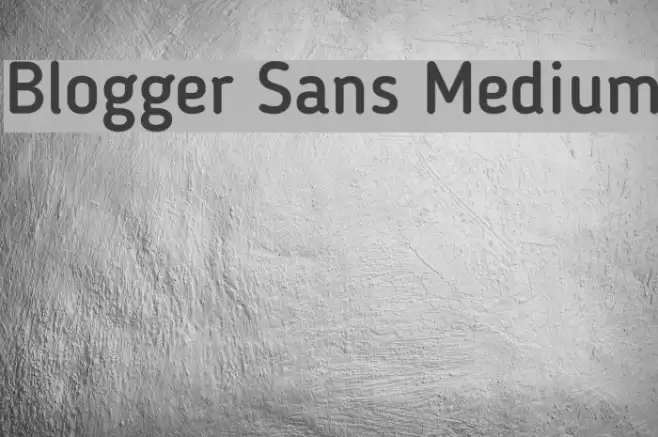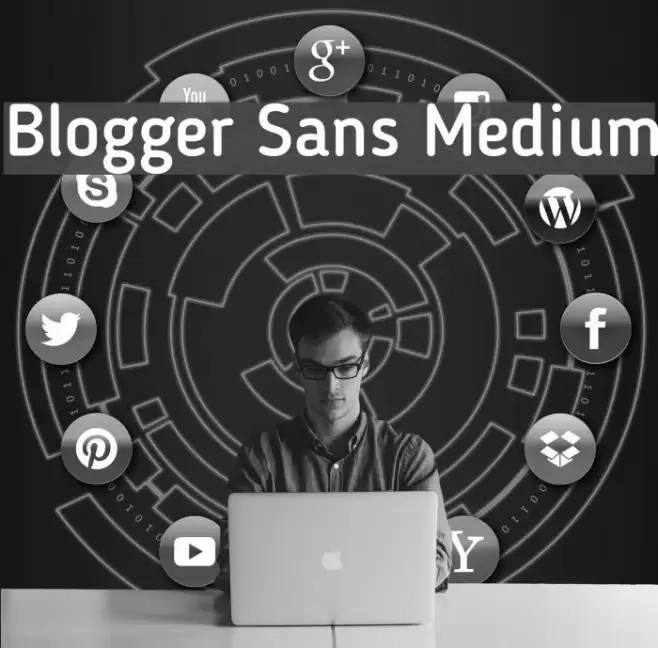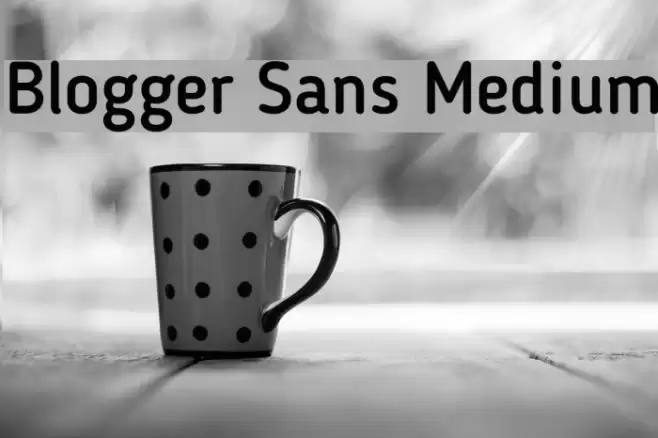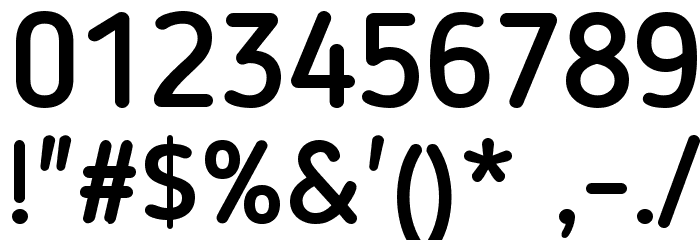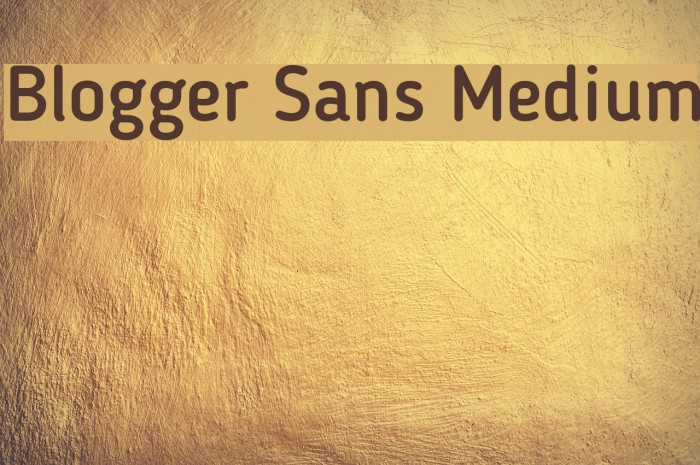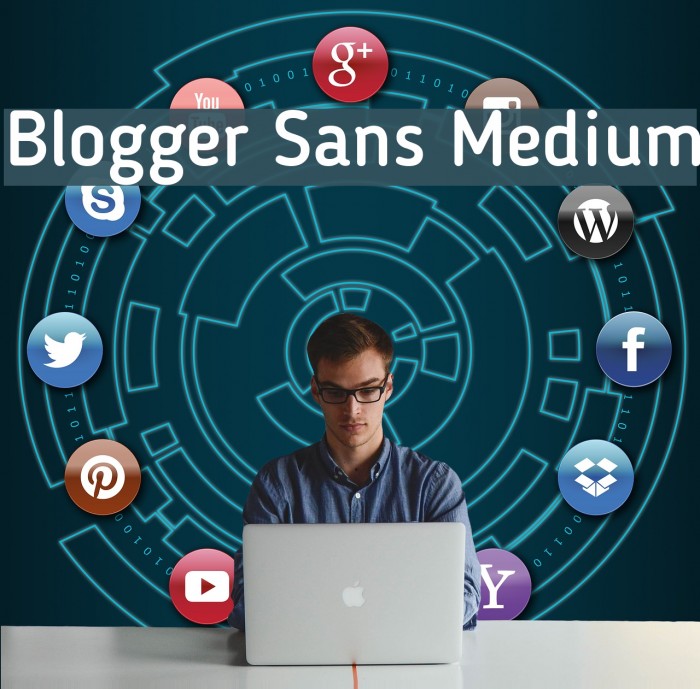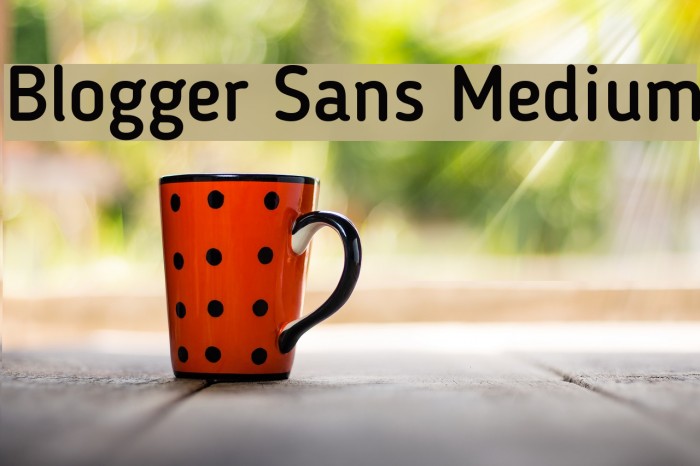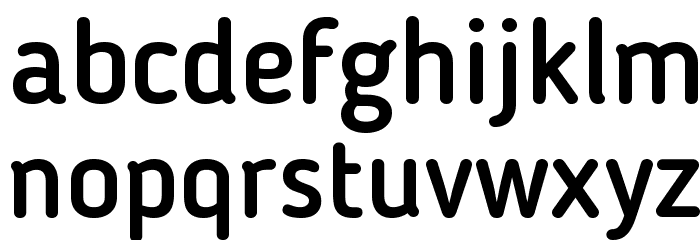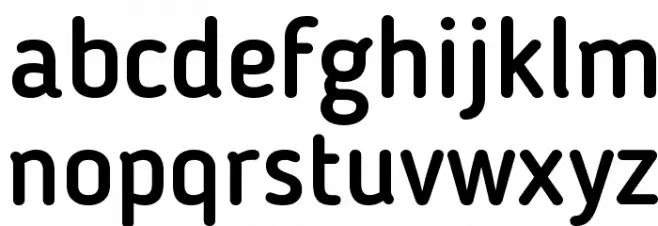
Blogger Sans Medium
This font features a clean and modern sans-serif design with rounded edges that give it a friendly and approachable appearance. The characters are evenly spaced, providing excellent readability across both uppercase and lowercase letters. The numerals are distinct and easy to differentiate, making them suitable for various applications. Special characters are well-integrated, maintaining the font's cohesive look. Its medium weight strikes a balance between light and bold, offering versatility for different design needs.
A modern, rounded sans-serif font with medium weight and excellent readability.
- Proposed Projects: Ideal for web design, branding, advertising, and user interfaces where a modern and approachable look is desired.